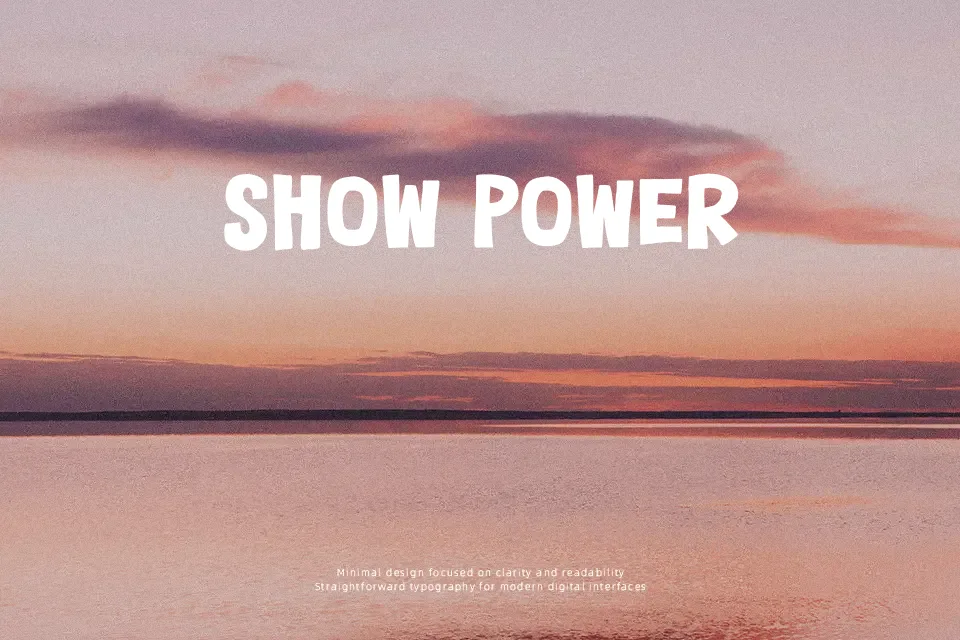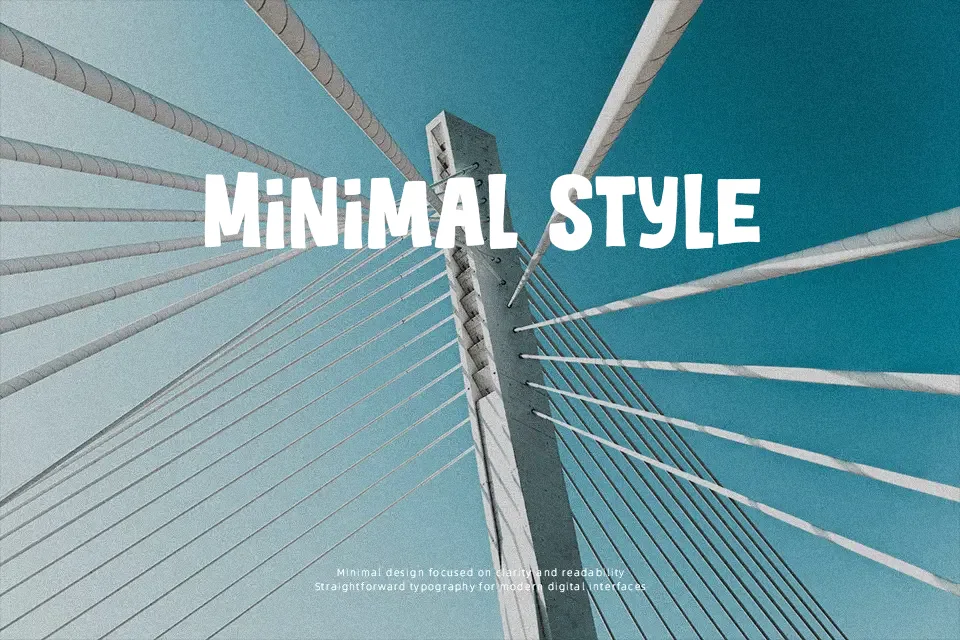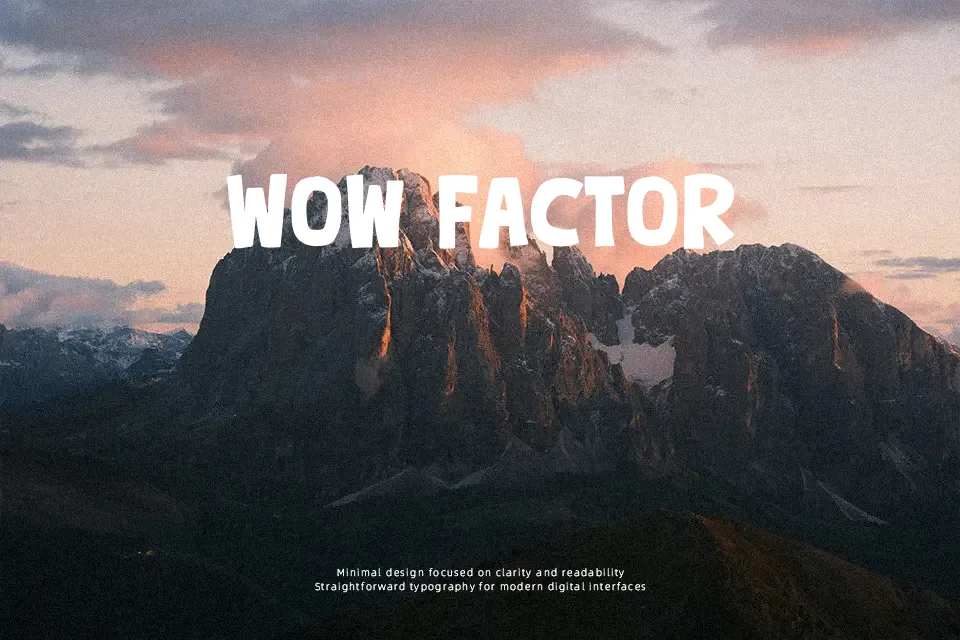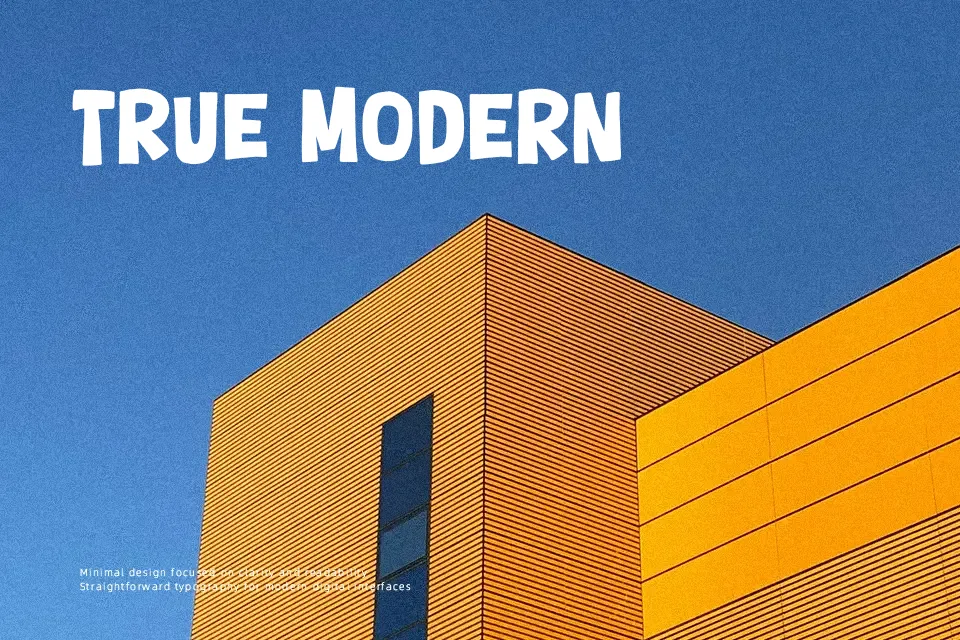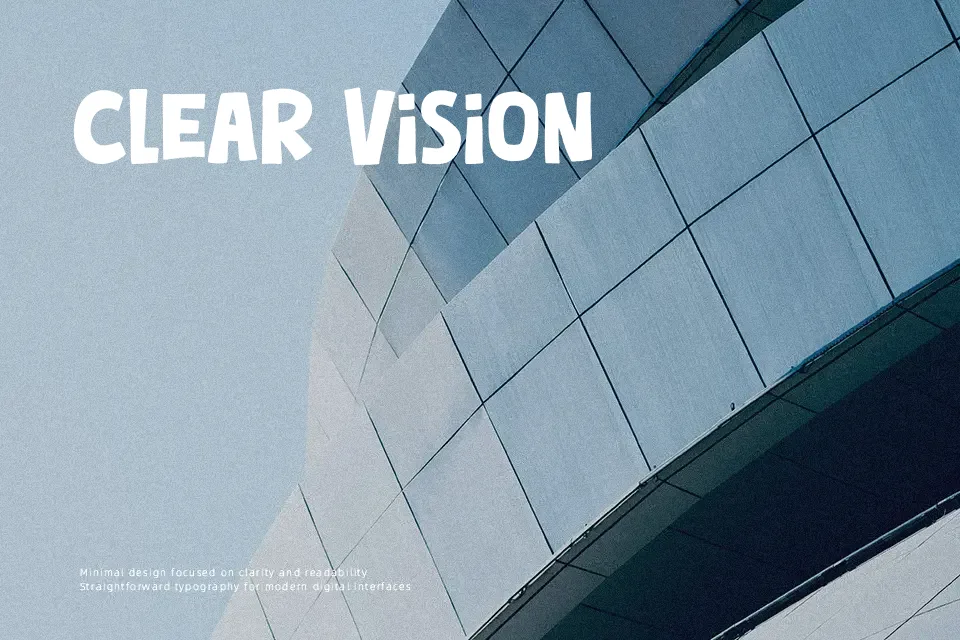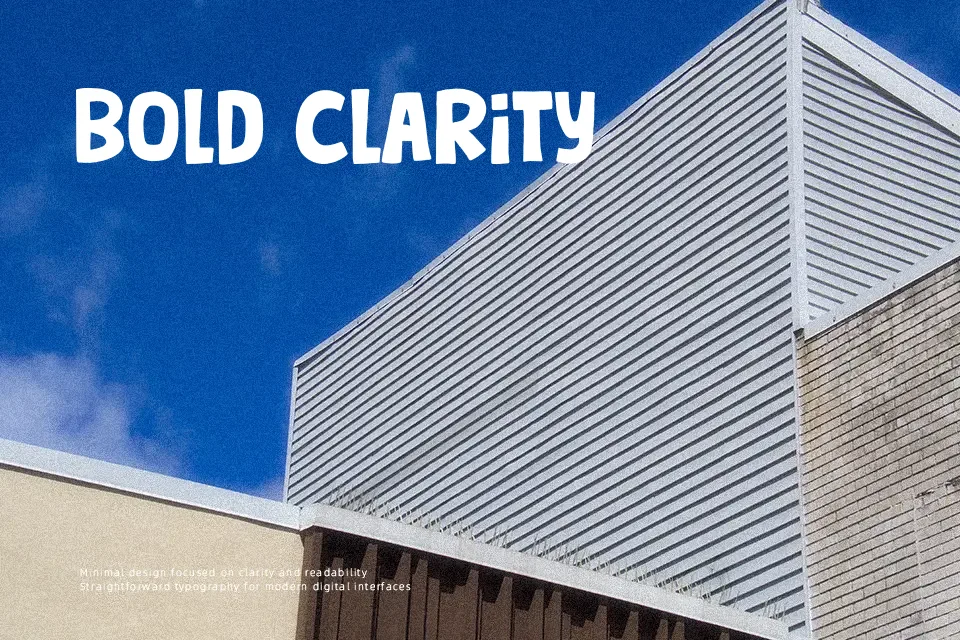
Chill Chirp Font
Chill Chirp Font showcases heavy, rounded strokes with irregular contours that create a lively, animated character across all glyphs. The letterforms exhibit low stroke contrast, generous inner counters, and loose, forgiving proportions that emphasize an informal hand-drawn structure. While spacing is wide enough to prevent neighboring glyphs from clashing at large scale, the organic geometry and heavy weight make dense body text difficult to read comfortably. Uppercase characters carry bold visual weight that pairs naturally with the quirky lowercase shapes in short phrases. The typeface excels in toy packaging, youth apparel, and poster headlines where prominent visibility matters most.
Best For: children’s book covers, toy packaging, cartoon merchandise, novelty poster headlines
Not Ideal For: continuous body text, corporate documents, small interface labels, dense legal disclaimers